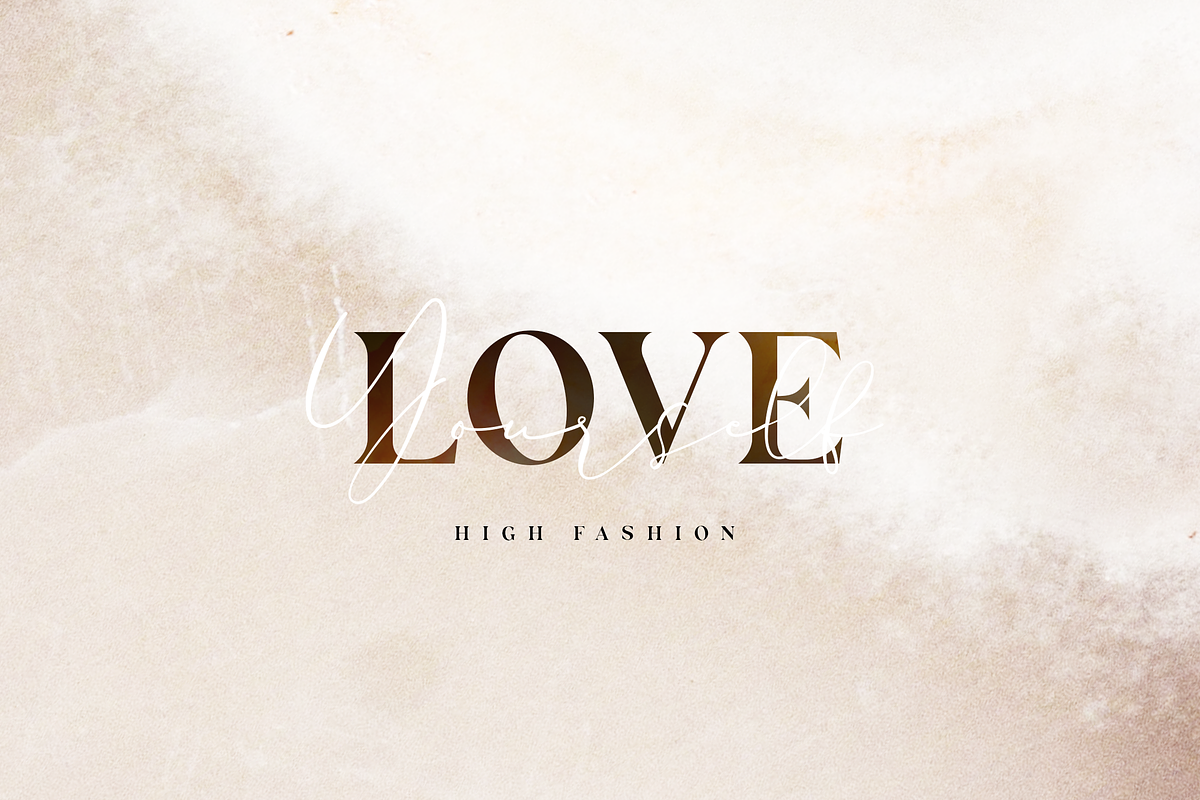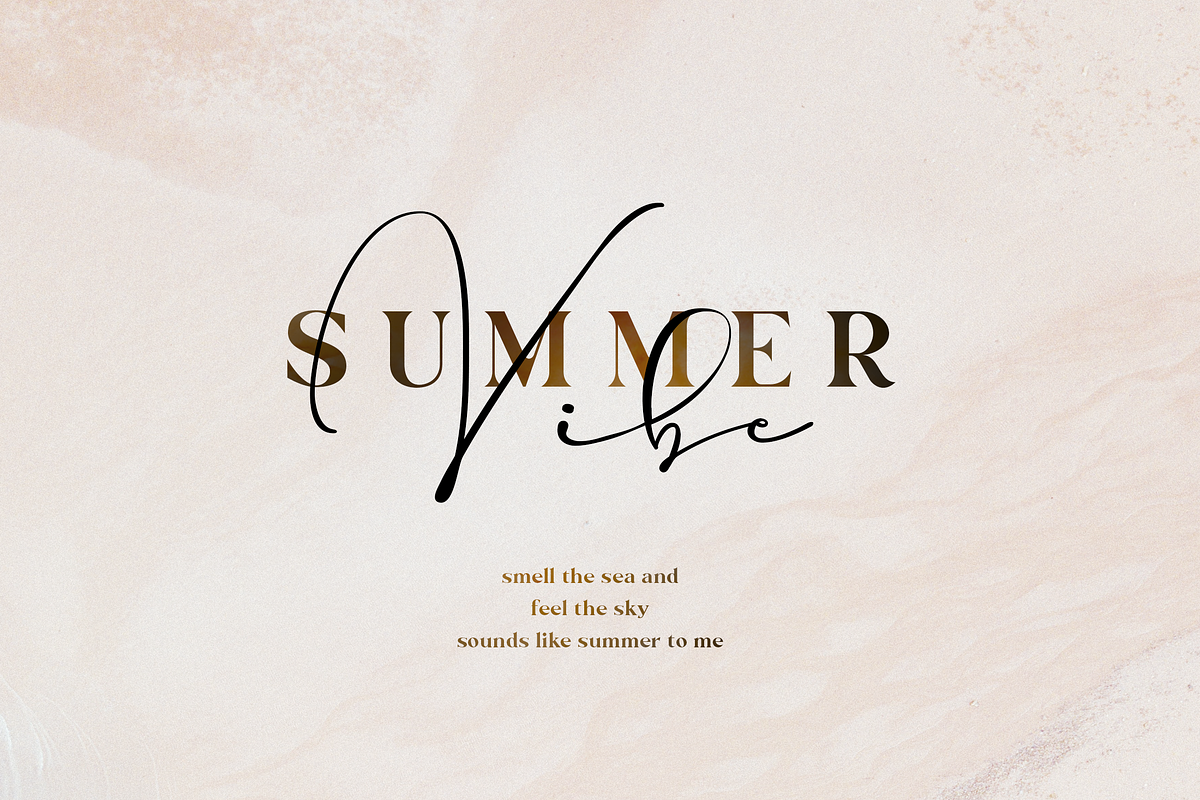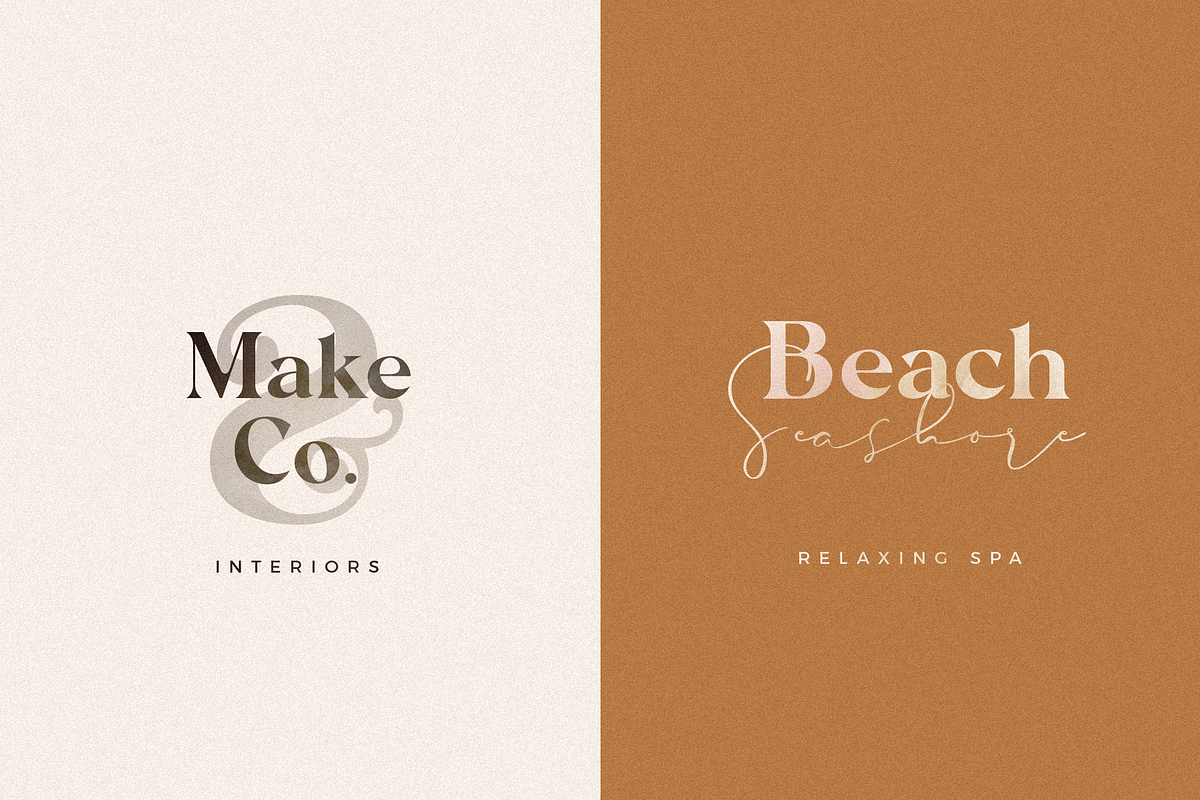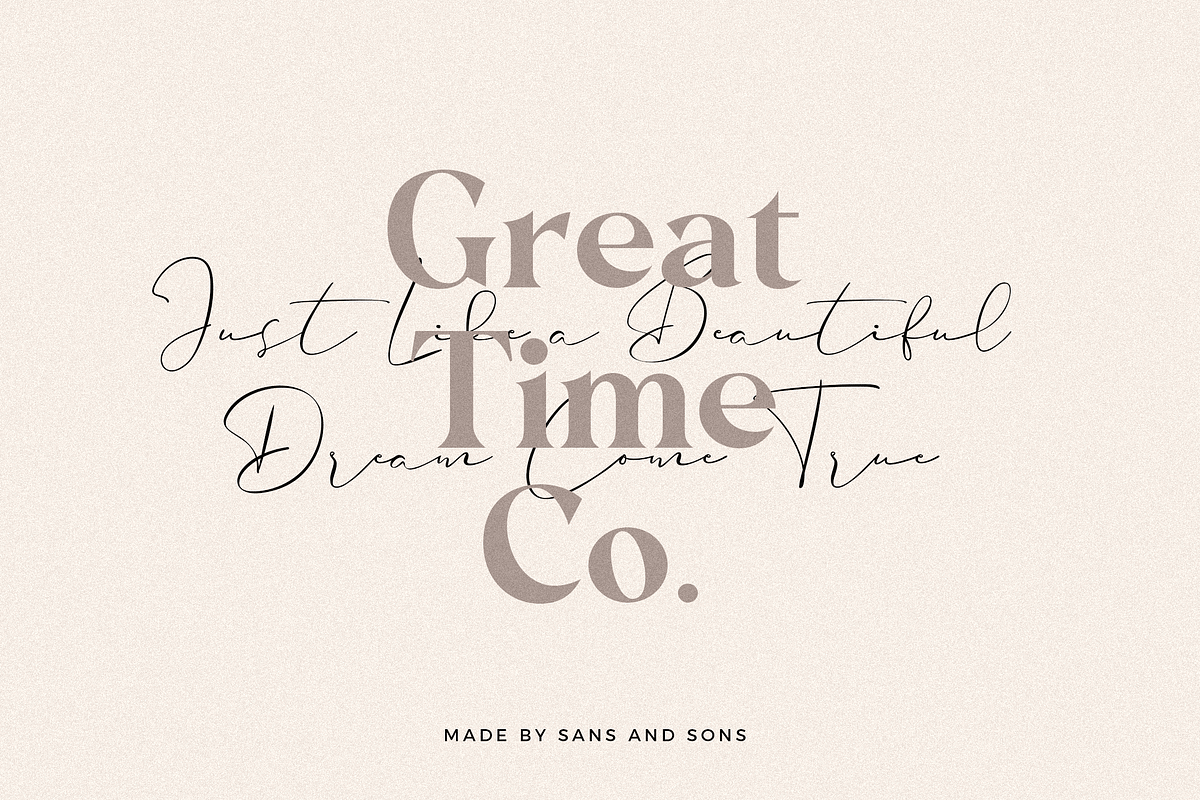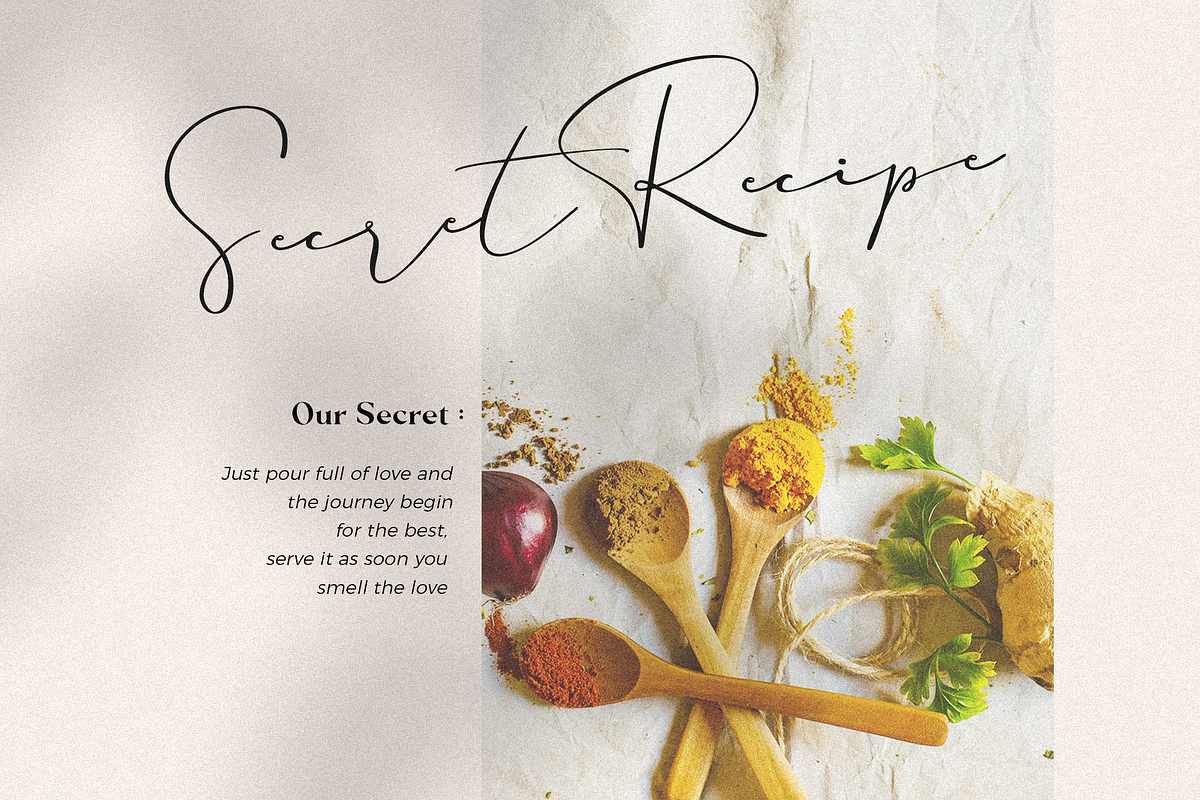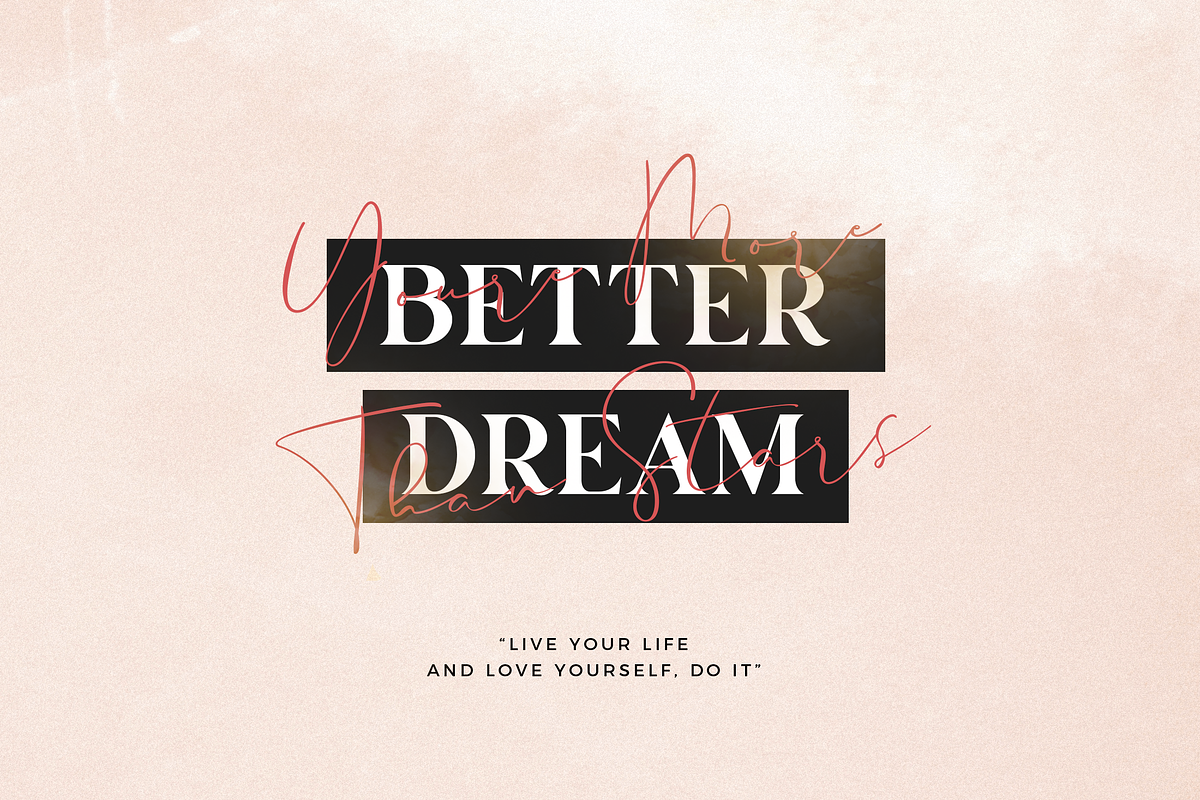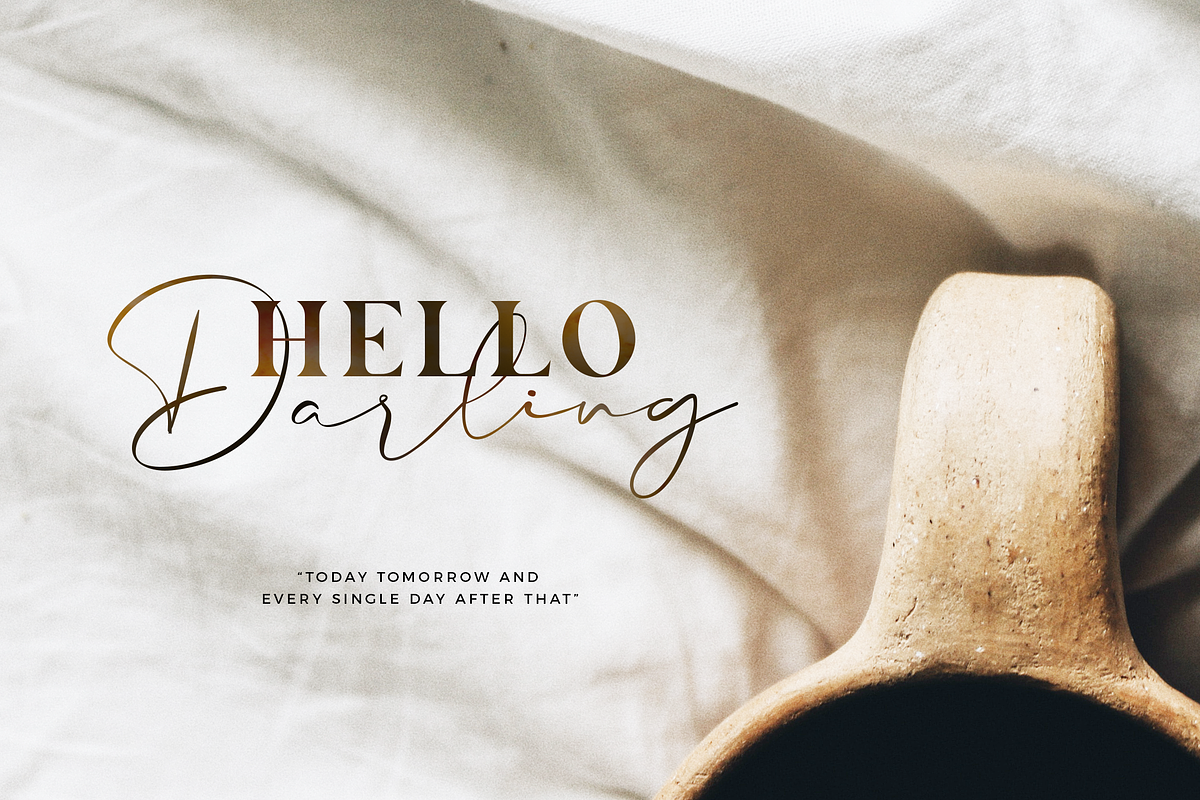
Carphe | Modern Luxury Font
Carphe - Luxury Signature Serif Duoby Sans and Sons
introducing our new "Carphe" font duo with Modern Luxury Style this is perfect for branding, logos, invitation, masterheads and more.
Why Carphe | Modern Luxury Font is worth a look
Carphe | Modern Luxury Font by Sans & Sons fits naturally into Branding, posters, packaging, typography.